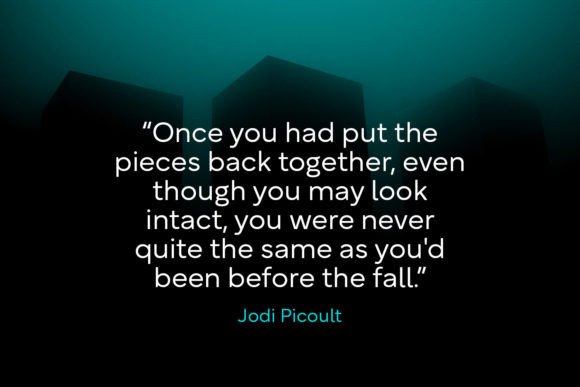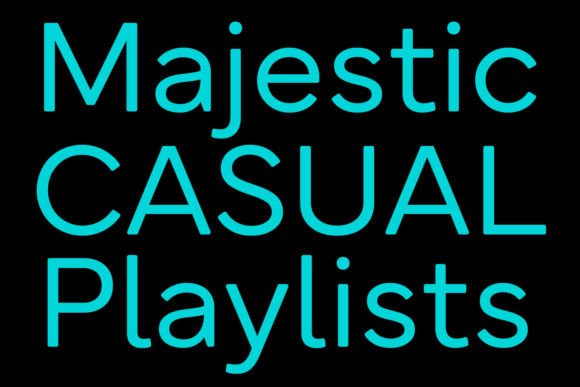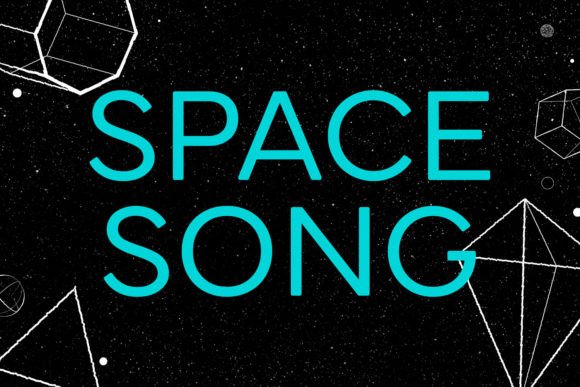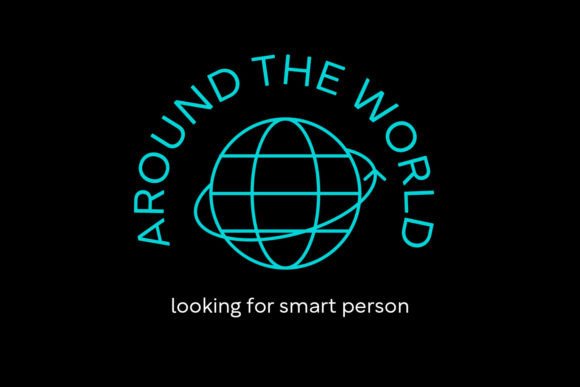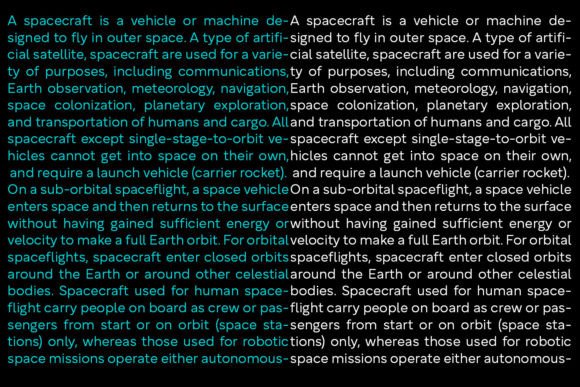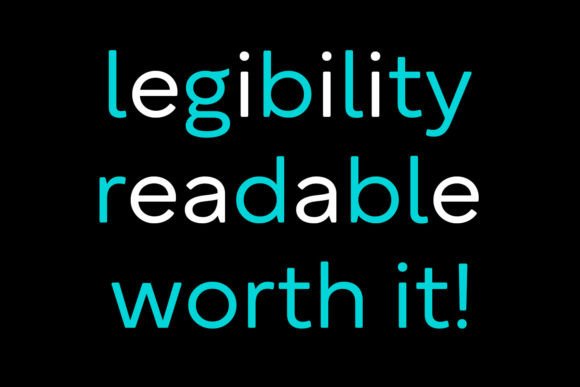
Introducing Galvote Font: The Ultimate Modern Display Font for Futuristic Designs
In the world of design, fonts play a crucial role in conveying the message and aesthetic of a project. For designers and crafters looking to give their work a futuristic edge, Galvote Font is an excellent choice. This modern and minimalist display font is designed to make a bold statement and capture your audience’s attention with its sharp lines and sleek shapes.
What Makes Galvote Font Stand Out?
Galvote Font is not just another font; it’s a design statement. Its high-tech vibe makes it perfect for logos, banners, and other design elements that require a modern, cutting-edge look. The font’s clean and minimalist design ensures that it remains versatile and can be used across various design projects, from digital interfaces to print materials.
Key Features of Galvote Font
• Modern and Minimalist: Galvote Font embodies the essence of modern design with its minimalist approach. The clean lines and simple shapes make it a versatile font for various design applications.
• Sharp Lines and Sleek Shapes: Each letter in Galvote Font is crafted with sharp lines and sleek shapes, giving it a futuristic feel that’s hard to ignore.
• High-Tech Vibe: The font’s design exudes a high-tech aesthetic, making it perfect for projects that require a cutting-edge look.
• Perfect for Display Purposes: Galvote Font is specifically designed as a display font, making it ideal for headlines, logos, banners, and any other design element that needs to stand out.
Use Cases for Galvote Font
Galvote Font’s versatility and futuristic design make it suitable for a wide range of projects. Here are some use cases where Galvote Font truly shines:
• Logo Design: Create a memorable and impactful logo that stands out with Galvote Font’s modern and sleek aesthetic.
• Banners and Posters: Use Galvote Font to create eye-catching banners and posters that demand attention.
• Digital Interfaces: Enhance the user experience of your website or app with Galvote Font’s clean and futuristic design.
• Print Materials: From brochures to business cards, Galvote Font can add a modern touch to your print materials.
Tips for Using Galvote Font Effectively
To maximize the impact of Galvote Font, consider the following tips:
• Pair with Complementary Fonts: While Galvote Font is perfect for headlines, pair it with a more readable font for body text to create a balanced design.
• Experiment with Colors: Take advantage of Galvote Font’s versatility by experimenting with different colors and gradients to enhance its futuristic appeal.
• Consider Size and Weight: Galvote Font is designed to make a statement. Use it in larger sizes to maximize its impact, and experiment with different weights to add depth to your design.
Galvote Font is a powerful tool for designers and crafters looking to infuse their projects with a modern and futuristic edge. Its sharp lines, sleek shapes, and high-tech vibe make it an excellent choice for a wide range of design applications. By incorporating Galvote Font into your design toolkit, you’ll be well-equipped to create bold, attention-grabbing designs that leave a lasting impression on your audience.